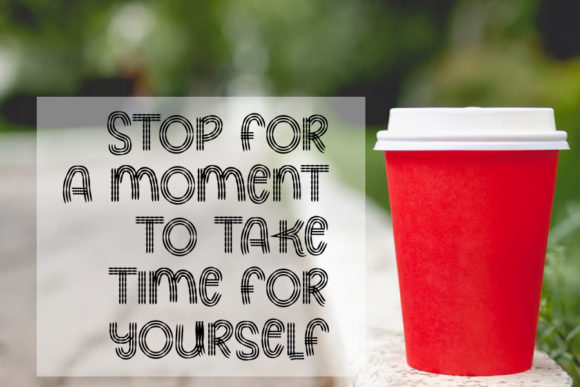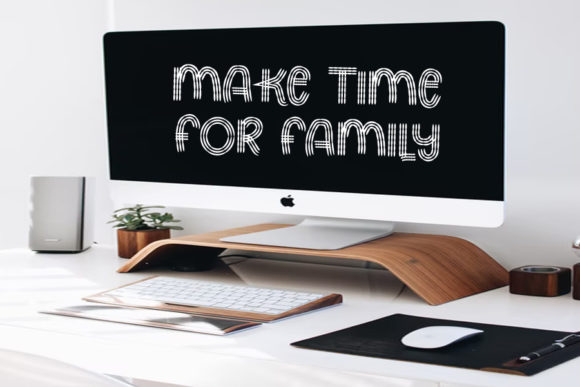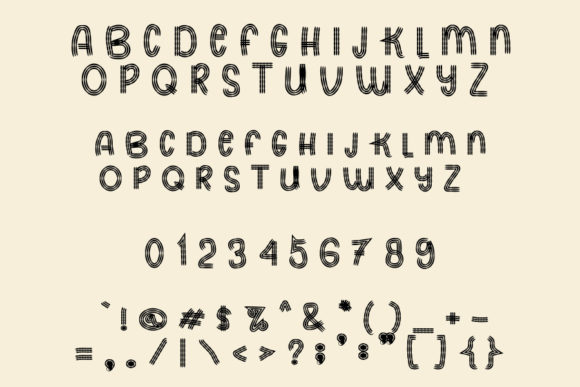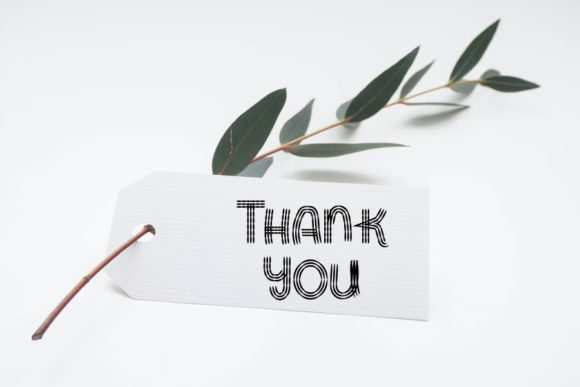
Introduction to Clear Water Font
Have you ever found yourself staring at a blank page, feeling the creative block and desperately searching for the perfect design element to spark your imagination? That’s exactly what happened to me the other day, and I stumbled upon the Clear Water Font – a game-changing discovery that instantly elevated my creative project to the next level.
With its uniquely shaped letters and transparent background, the Clear Water Font is a treasure trove of design possibilities, waiting to be unleashed in your next high-quality creation. Whether you’re a seasoned designer or a newcomer to the world of typography, this versatile font is sure to provide the distinct touch your project needs to stand out.
Key Features of Clear Water Font
- High-quality design resource with a transparent background, perfect for creative projects.
- Size: Scalable font, includes glyphs for various languages and characters.
- Unique characteristics: Clear Water Font features a clean, modern aesthetic with subtle texture, making it ideal for a range of creative projects.
- Perfect for use in digital design, branding, and typography, as well as print materials like business cards and brochures.
Honest Review: Clear Water Font
As a designer, I’m always on the lookout for high-quality design resources that can elevate my creative projects. Recently, I stumbled upon the Clear Water Font, which promised a lot, but did it deliver? Let’s dive in and find out.
Here are some things that work well: ✨
- Unique and elegant design style that can add a touch of sophistication to any project.
- High-quality vector format that’s perfect for print or digital use.
- Transparent background option, which makes it easy to place the font on any background.
However, I did encounter some limitations: ⚠️
- Only a single font style is available, which might limit its use in more complex projects.
Overall, I’d say the Clear Water Font is a solid addition to any designer’s toolkit, especially for simple projects or those that require a elegant, clean look. While it’s not perfect, its high quality and unique design style make it a worthwhile download for designers looking for a free design resource.
The Clear Water Font is a high-quality design resource perfect for creative projects.
Use it to add a touch of elegance to your designs and make them stand out.
Take advantage of its transparent background to create visually appealing graphics.
The Clear Water Font is ideal for:
Brand logos and identity designs
Advertising and marketing materials
Alternatives to Clear Water Font
Q: Is the Clear Water Font suitable for high-resolution printing?
Yes, the Clear Water Font is designed to be high-resolution, making it perfect for printing. The font is optimized for print and digital use, ensuring that it looks great on both screens and paper. However, please note that the font’s quality may vary depending on the printing resolution and paper quality.